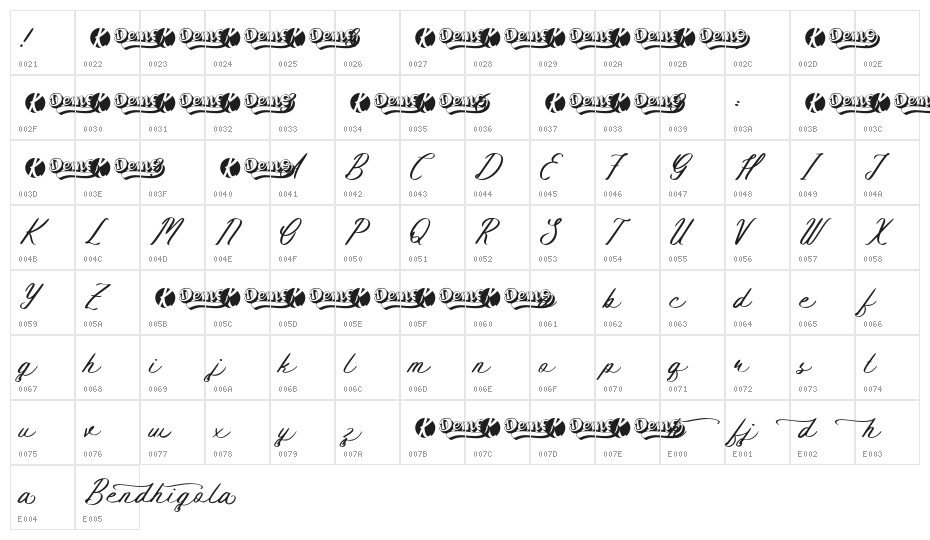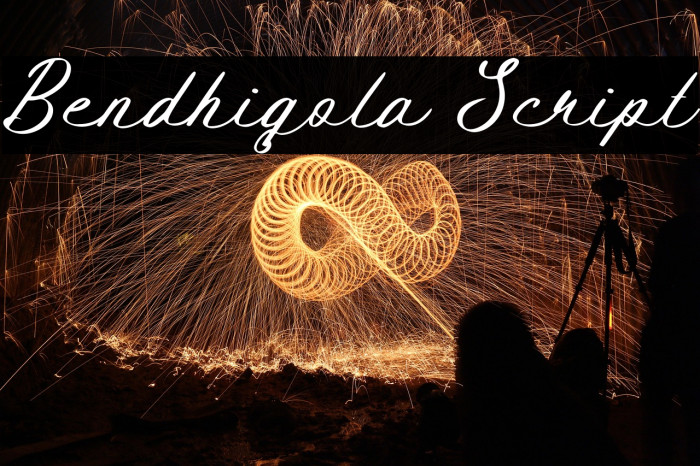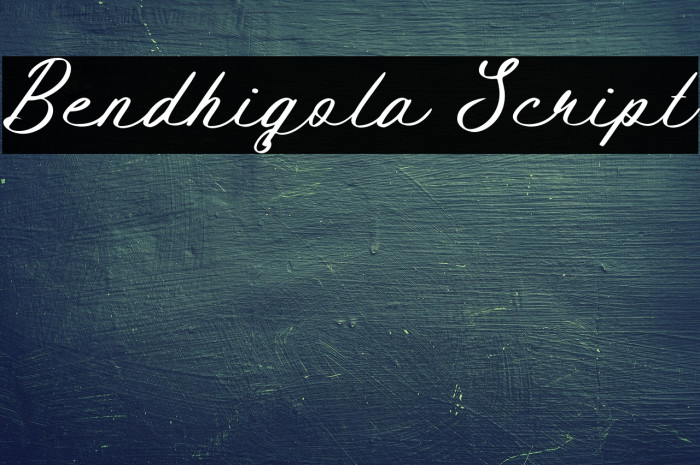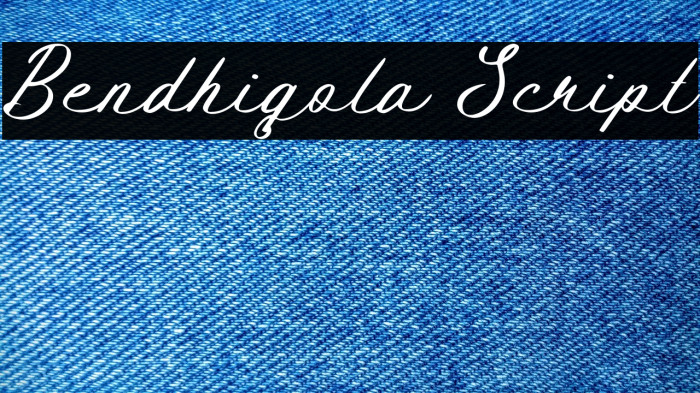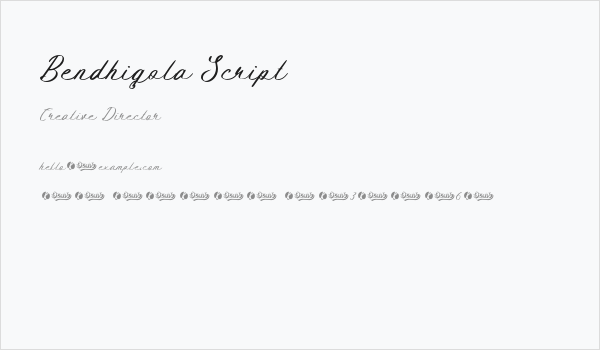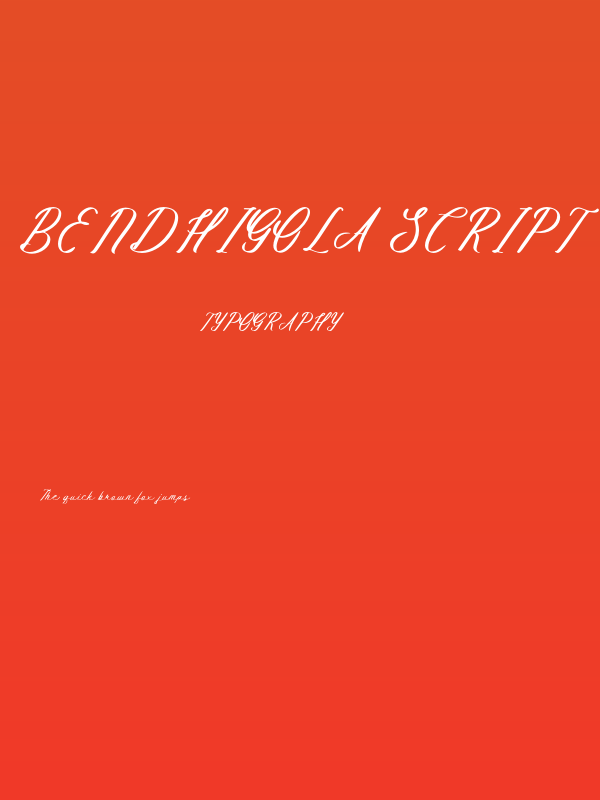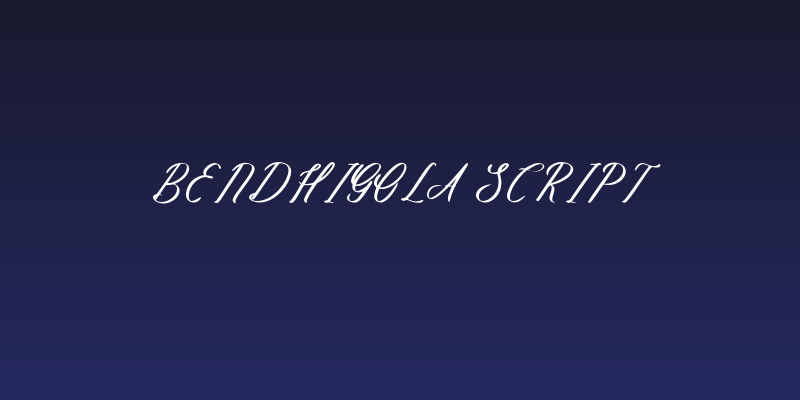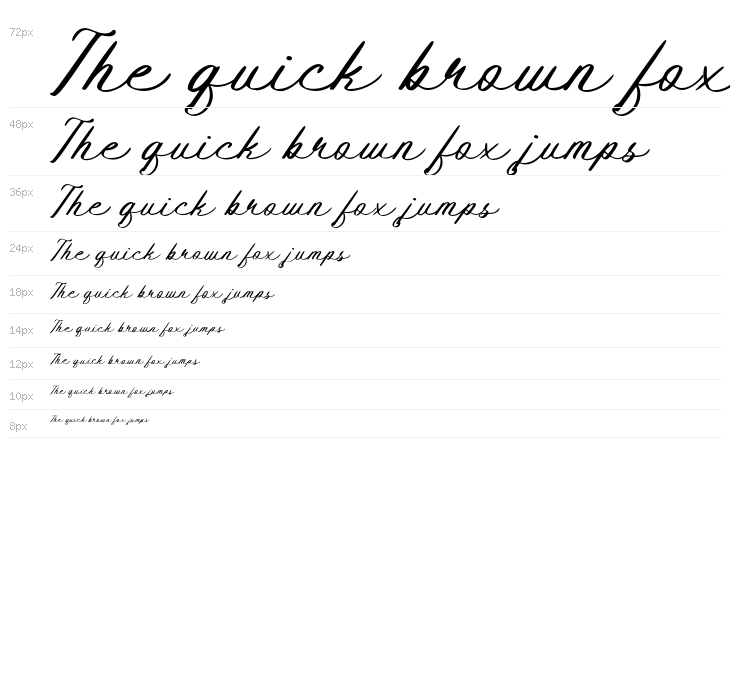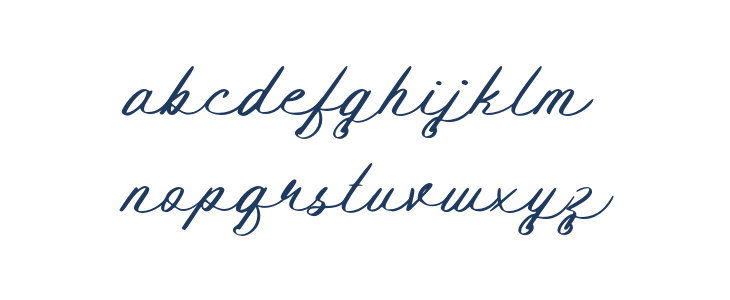
Bendhigola Script Font
Bendhigola Script Description
This script font exudes elegance and fluidity, characterized by its flowing, cursive style. The uppercase letters are tall and graceful, with sweeping curves and loops that give them a sophisticated appearance. The lowercase letters maintain a consistent flow, connecting smoothly with each other, which enhances readability while preserving the artistic flair. The numbers and special characters are designed to match the overall aesthetic, featuring similar curves and loops. This font is ideal for projects that require a touch of elegance and sophistication, such as wedding invitations, formal event programs, or luxury branding.
| Overall Style | Elegant, Sophisticated |
| Use Case | Headlines, Invitations, Branding |
| Proposed Projects | Wedding invitations, formal event programs, luxury branding, elegant stationery. |